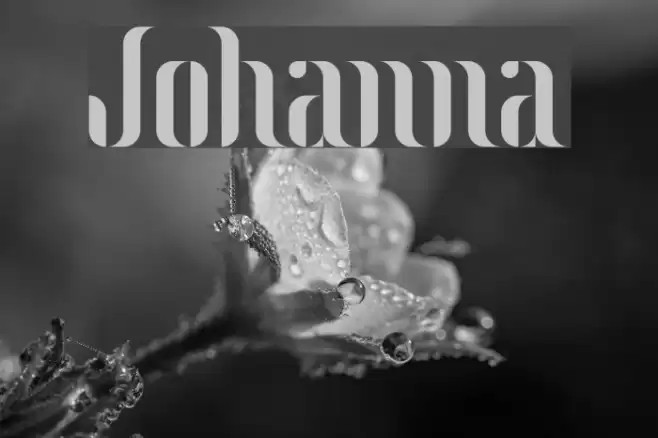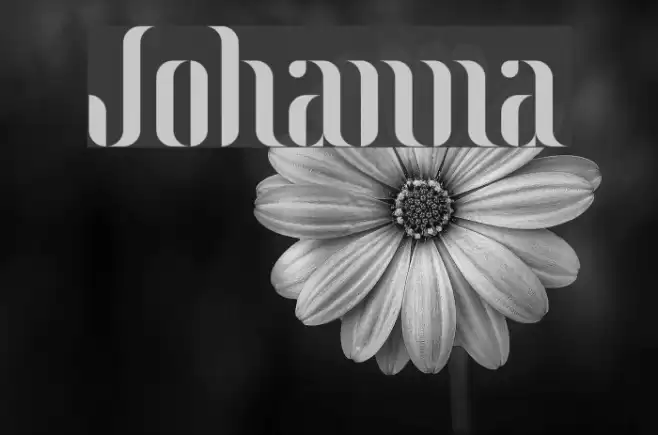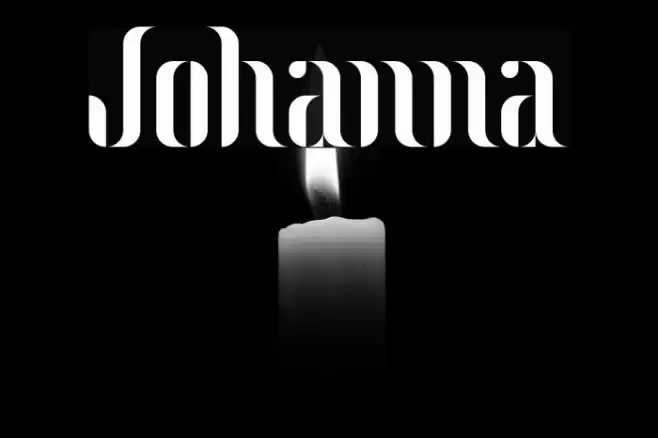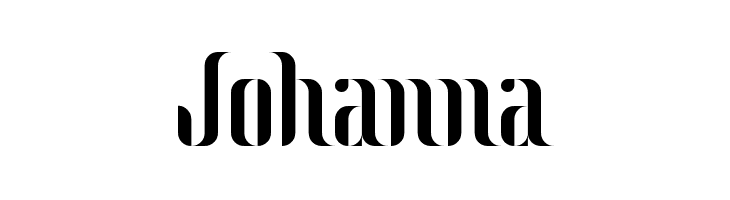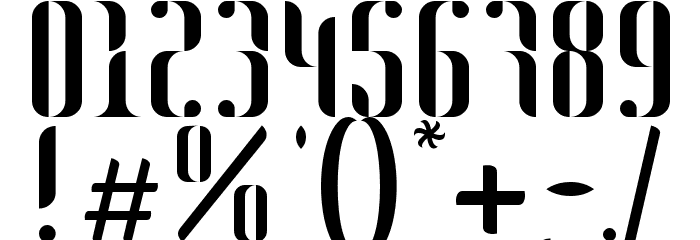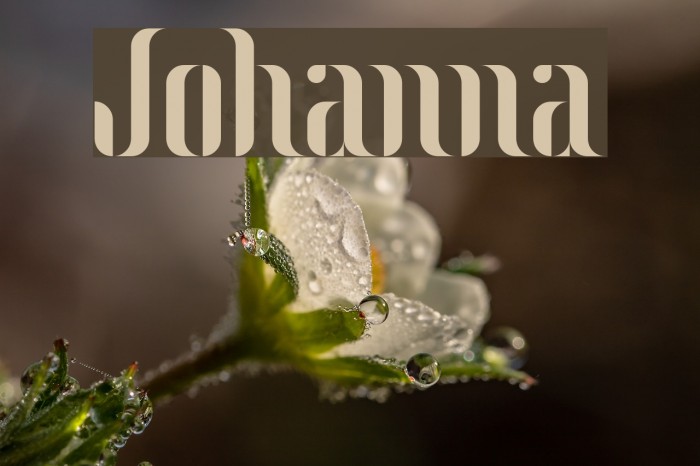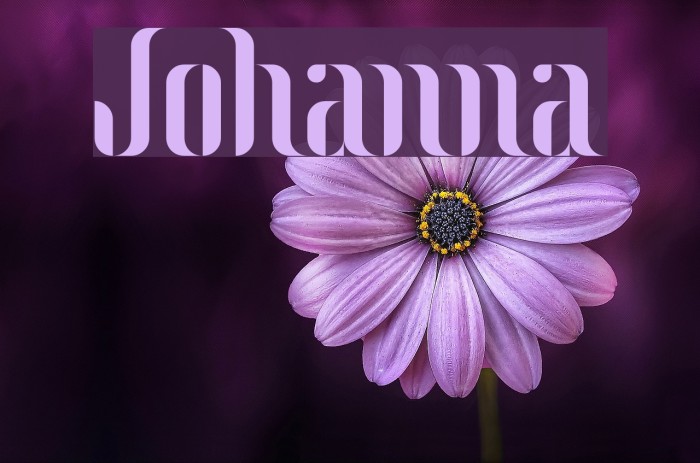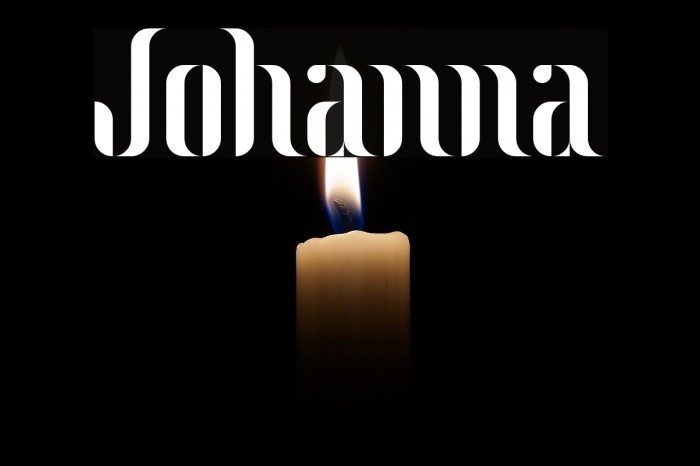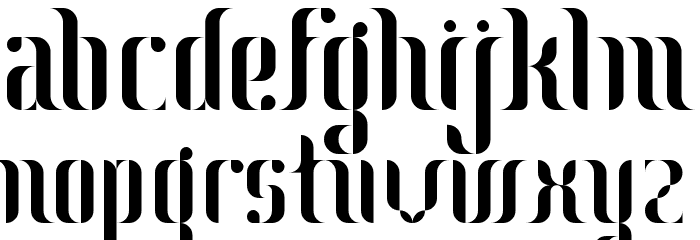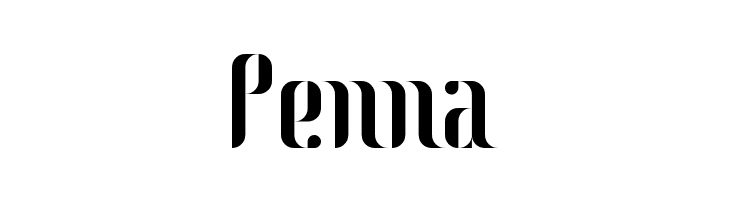
Johanna Font
Johanna Description
This font features a bold and modern design with a unique stencil-like appearance. The characters are constructed with distinct cut-out sections, giving them a futuristic and industrial feel. The uppercase and lowercase letters maintain a consistent style, with sharp angles and clean lines. The numerals and special characters follow the same design principles, ensuring uniformity across the typeface. The overall look is striking and eye-catching, making it suitable for projects that require a strong visual impact.
A bold, modern stencil-style font with a futuristic and industrial aesthetic from Uncategorized fonts.
- Proposed Projects: Ideal for branding, posters, headlines, and any design project that requires a bold and modern typeface.